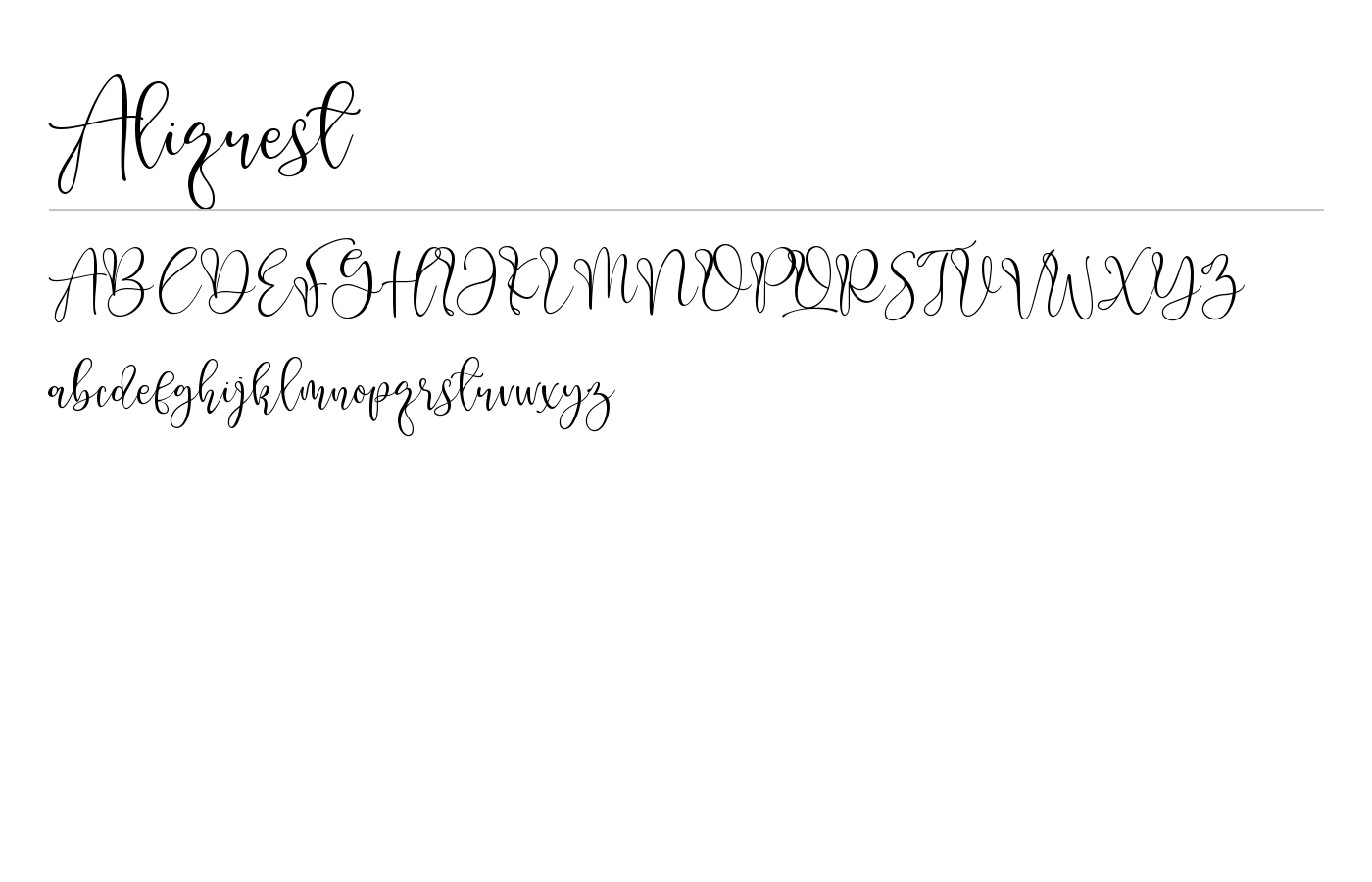
Aliquest is a delicate and elegant script font featuring slender, flowing strokes that create a graceful and sophisticated look. Its high contrast between thin and slightly thicker lines, combined with ornate swirls and loops, makes it perfect for invitations, branding, and designs that require a refined, artistic touch. This font excels in settings where a personal, handcrafted feel adds charm and style, such as wedding stationery or luxury packaging.
Aliquest Font
About Aliquest Font
| Font family | Aliquest Font |
| Designer | Sronstudio |